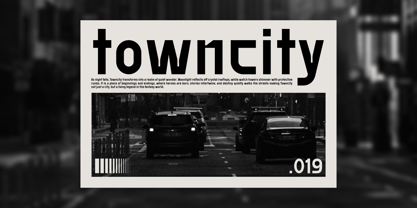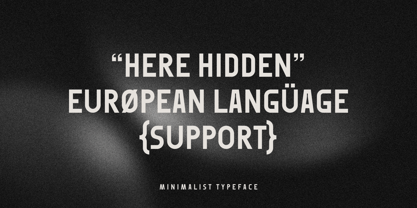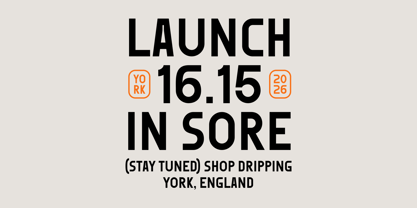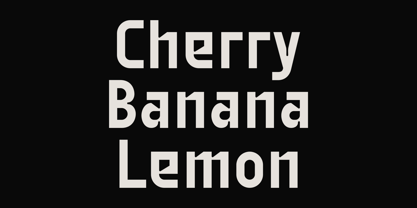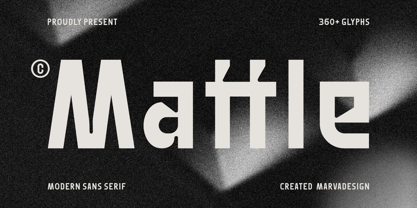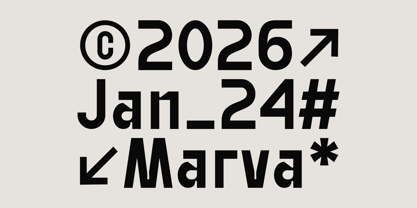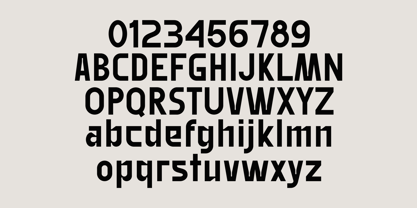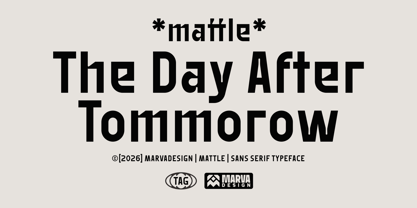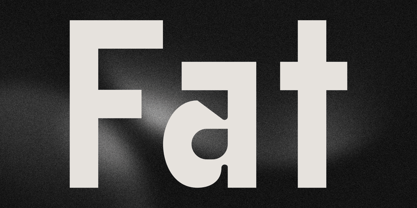
Mattle
Die Schriftfamilie Mattle wurde von Febrie Setiawan entworfen und von Marvadesign veröffentlicht. Mattle enthält 1 Stile. Mehr über diese Familie
Mattle is a modern sans-serif typeface that combines bold geometry with subtle industrial character. Its letterforms are clean and confident, featuring firm vertical strokes, rounded inner curves, and distinctive angular cuts that give the font a contemporary yet slightly mechanical feel. The balance between sharp edges and smooth shapes creates a strong visual rhythm, making the typeface feel solid, stable, and highly legible even at large display sizes. Designed with versatility in mind, Mattle works exceptionally well for headlines, posters, branding, editorial layouts, and modern graphic compositions. The font includes an extensive character set with over 360 glyphs, supporting European languages and offering a wide range of symbols, numerals, and punctuation. Its minimalist structure allows it to stand out without excessive decoration, while unique details such as the stylized terminals and compact proportions add personality and distinction.